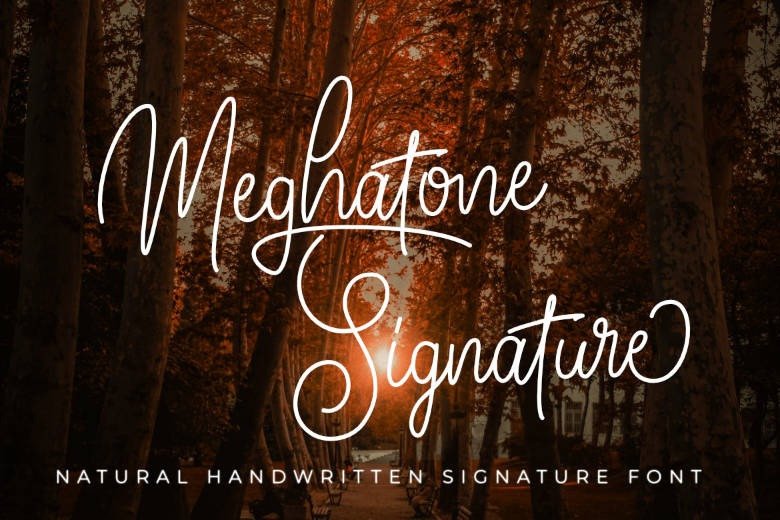
Meghatone Font
Meghatone Handwritten Font is Beautiful Monoline script typeface with a natural handwritten feel. This handmade font will make your design has a beautiful natural touch for each details. It’s a stunning signature font created by Andrimada Creative  with a cool twist, it has a light and fun script. It will be the ideal font to add a natural handwritten touch to any design.
This font is suitable for use on fashion designs, business cards, wedding invitations, t-shirt designs, logos, quotes, photography and much more.